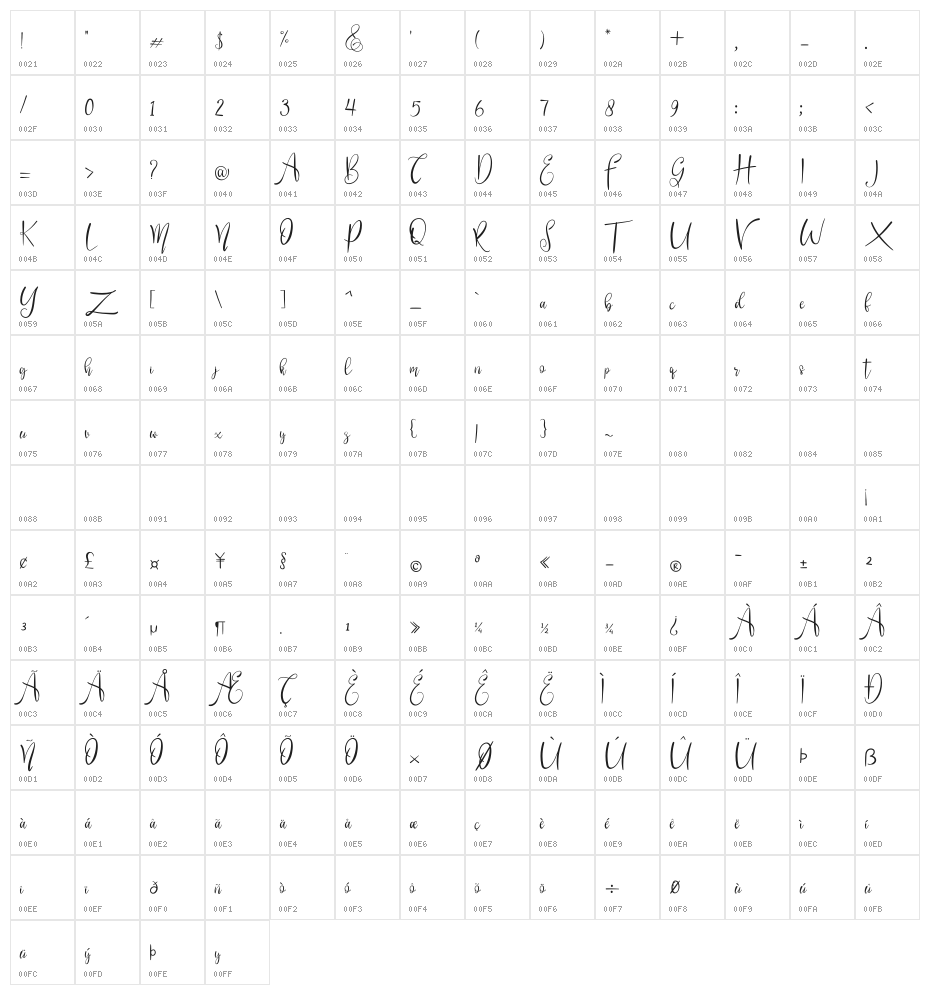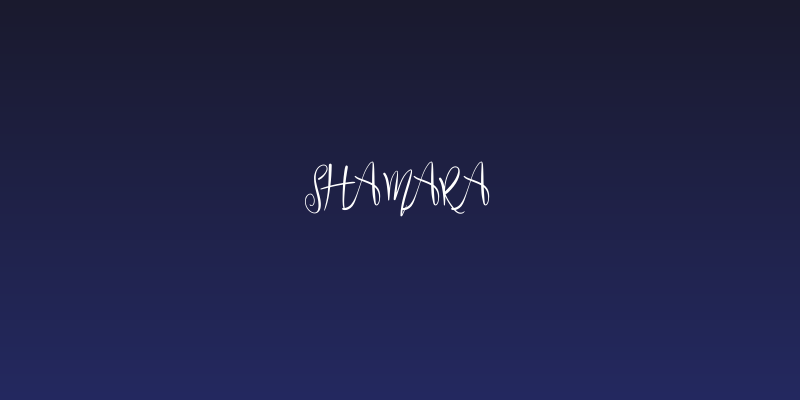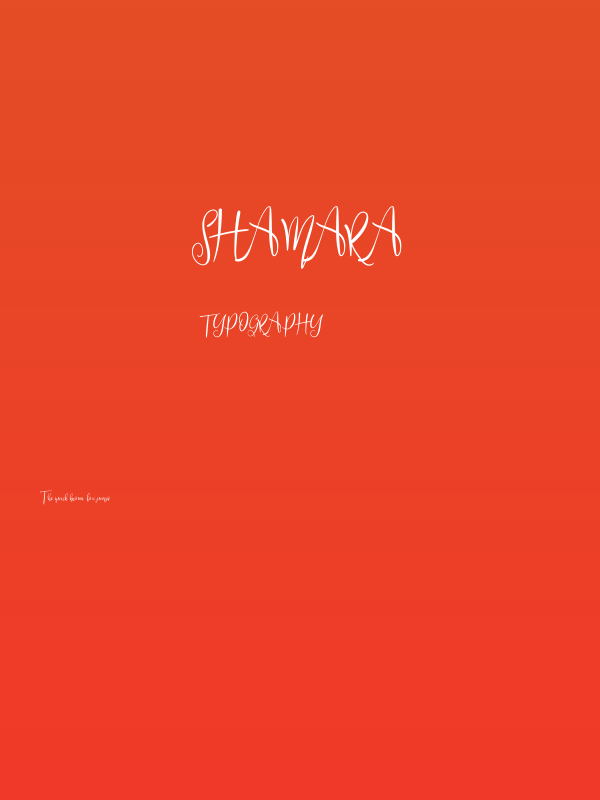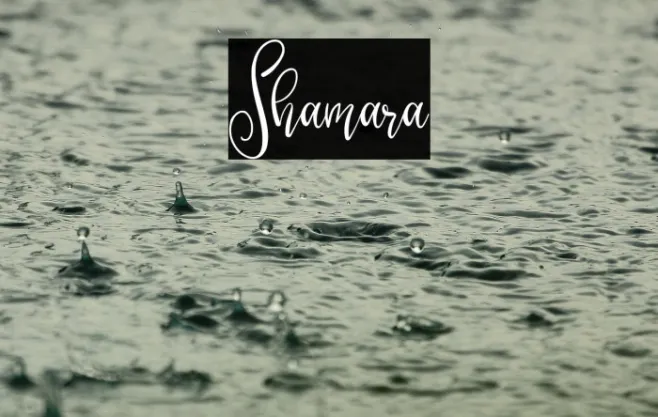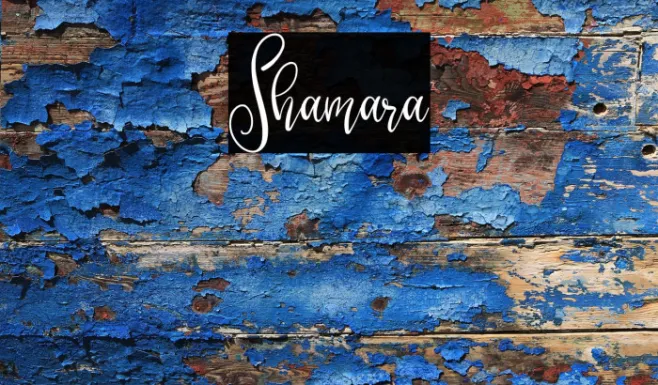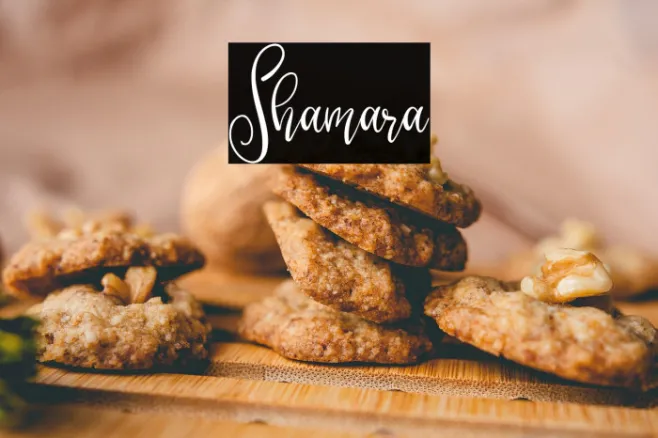
Shamara Font
Shamara Description
This font features an elegant and flowing script style, characterized by its graceful curves and loops. The uppercase letters are particularly ornate, with some incorporating intricate swirls that add a touch of sophistication. The lowercase letters maintain a consistent fluidity, making them highly legible despite their decorative nature. Numbers and special characters are designed to match the overall aesthetic, ensuring a cohesive look across all text. This font exudes a sense of elegance and charm, making it suitable for a variety of creative applications.